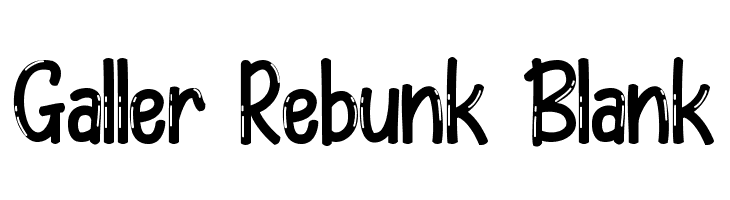
A playful, casual handwritten font with smooth, flowing lines and slightly irregular shapes.
A playful and modern font with bold, slightly condensed uppercase letters and whimsical lowercase letters.
A playful, hand-drawn font with bold, rounded characters.
A playful, handwritten font with rounded, smooth letterforms and a casual style.
A playful, hand-drawn font with bold outlines and sketch-like texture.
A bold, expressive handwritten font with smooth curves and a playful style.
A bold, playful font with rounded, cartoonish letters.
A bold, playful, and hand-drawn style font with rounded characters.
A bold, italicized, and playful font with rounded strokes and a dynamic style.
A casual, handwritten-style font with a slight slant and smooth, flowing lines.